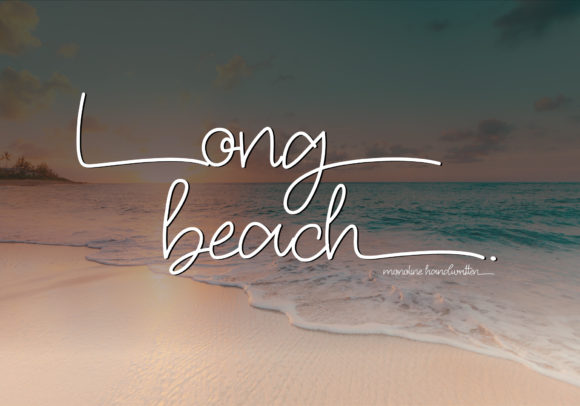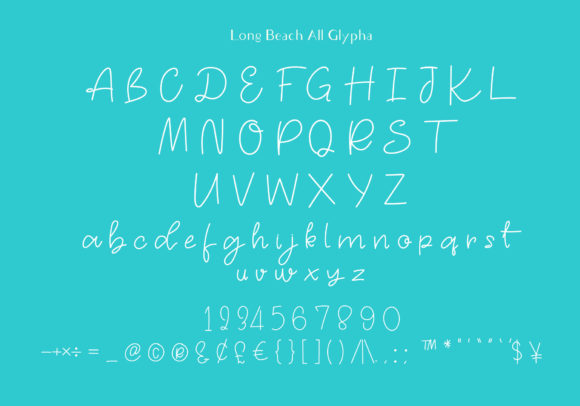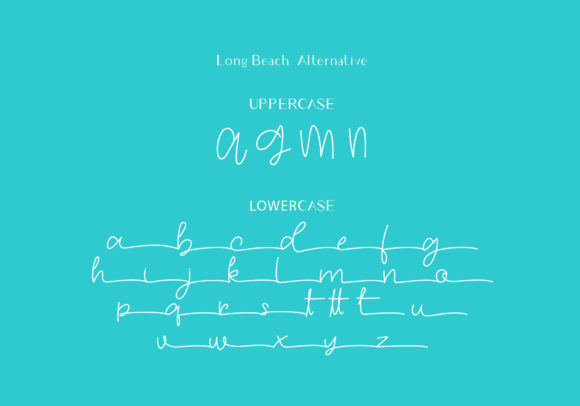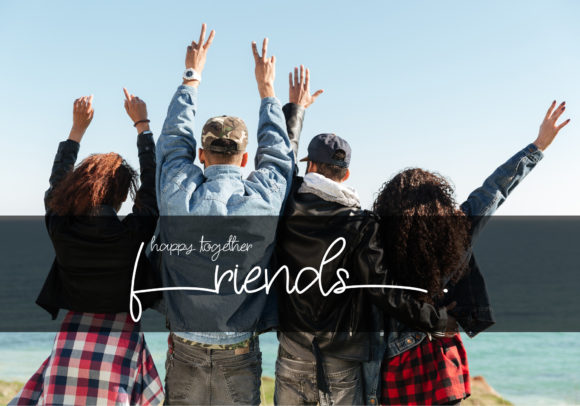
About Long Beach Font
Long Beach is a thin and beautiful script font. It looks lovely on wedding invitations, thank you cards, quotes, greeting cards, logos, business cards and every other design which needs a handwritten touch. It features a varying baseline, smooth lines, gorgeous glyphs and stunning alternates.